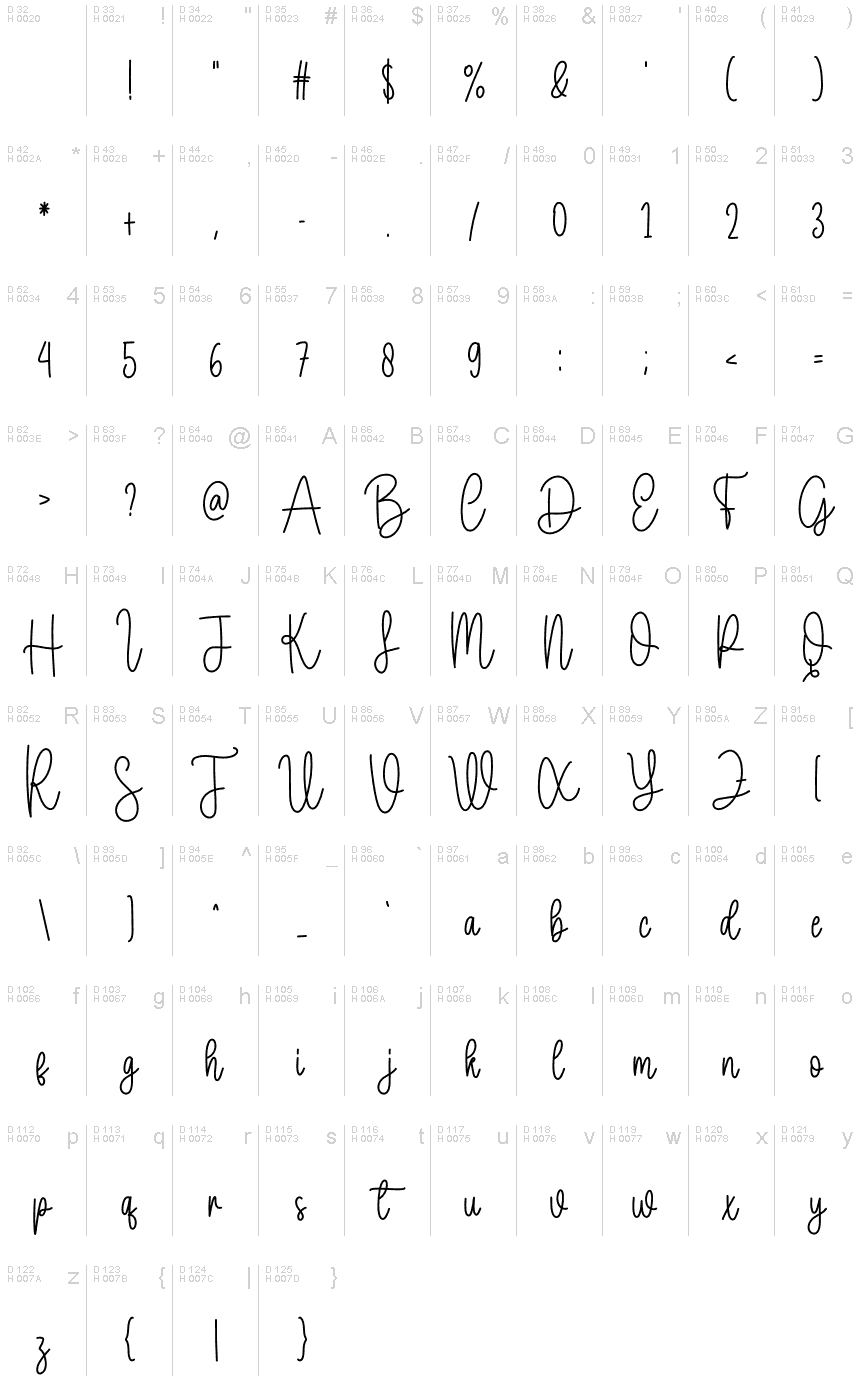
Septhia
Septhia, a stunning creation by Scratchones, is a breathtakingly beautiful handwritten font that adds an elegant touch to any project. With its light weight and semi-condensed width, this font exudes sophistication and charm.
Perfect for wedding invitations, luxury branding, and feminine blog designs, Septhia effortlessly captures the essence of gracefulness and refined aesthetics. Its delicate curves and intricate details make it ideal for adding a touch of elegance to your creative endeavors.
Let Septhia elevate your designs to new levels of beauty and allure.
The latest style letters are perfect for wall displays, wedding invitations, social media post logos, advertisements, product packaging, product designs, labels, photography, watermarks, invitations, stationery, and any project that requires taste handwriting.
Perfect for wedding invitations, luxury branding, and feminine blog designs, Septhia effortlessly captures the essence of gracefulness and refined aesthetics. Its delicate curves and intricate details make it ideal for adding a touch of elegance to your creative endeavors.
Let Septhia elevate your designs to new levels of beauty and allure.
The latest style letters are perfect for wall displays, wedding invitations, social media post logos, advertisements, product packaging, product designs, labels, photography, watermarks, invitations, stationery, and any project that requires taste handwriting.